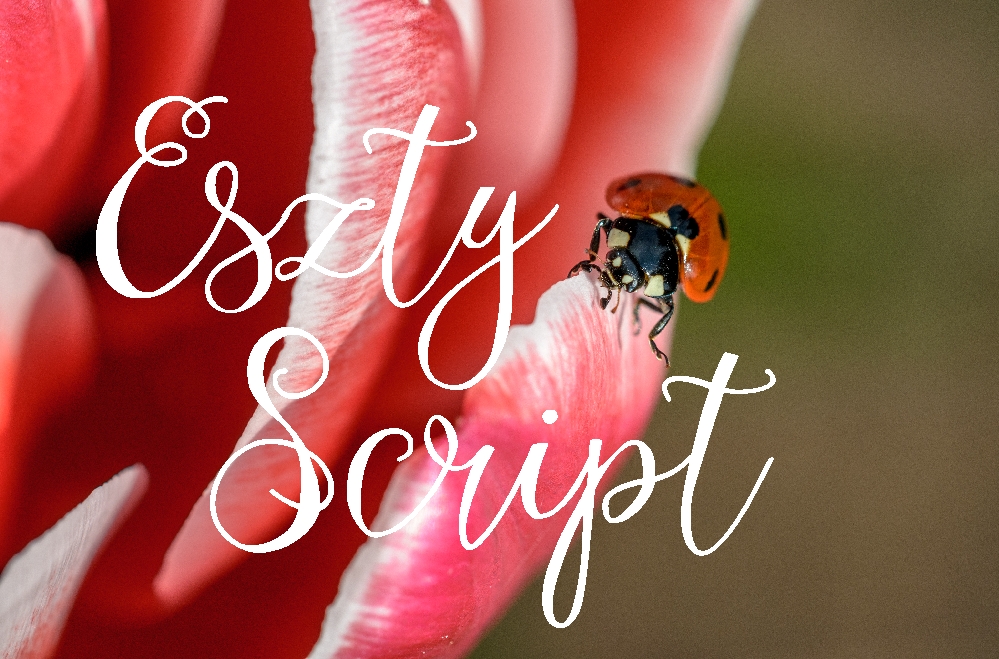
Eszty Font
About Eszty Font
Eszty Script is a hand-crafted multi-purpose font.
It features upper & lowercase, numeral, punctuation and currency glyphs.
Eszty Script is perfect for wedding stationery, product packaging, branding projects – or simply as a text overlay to any background image.